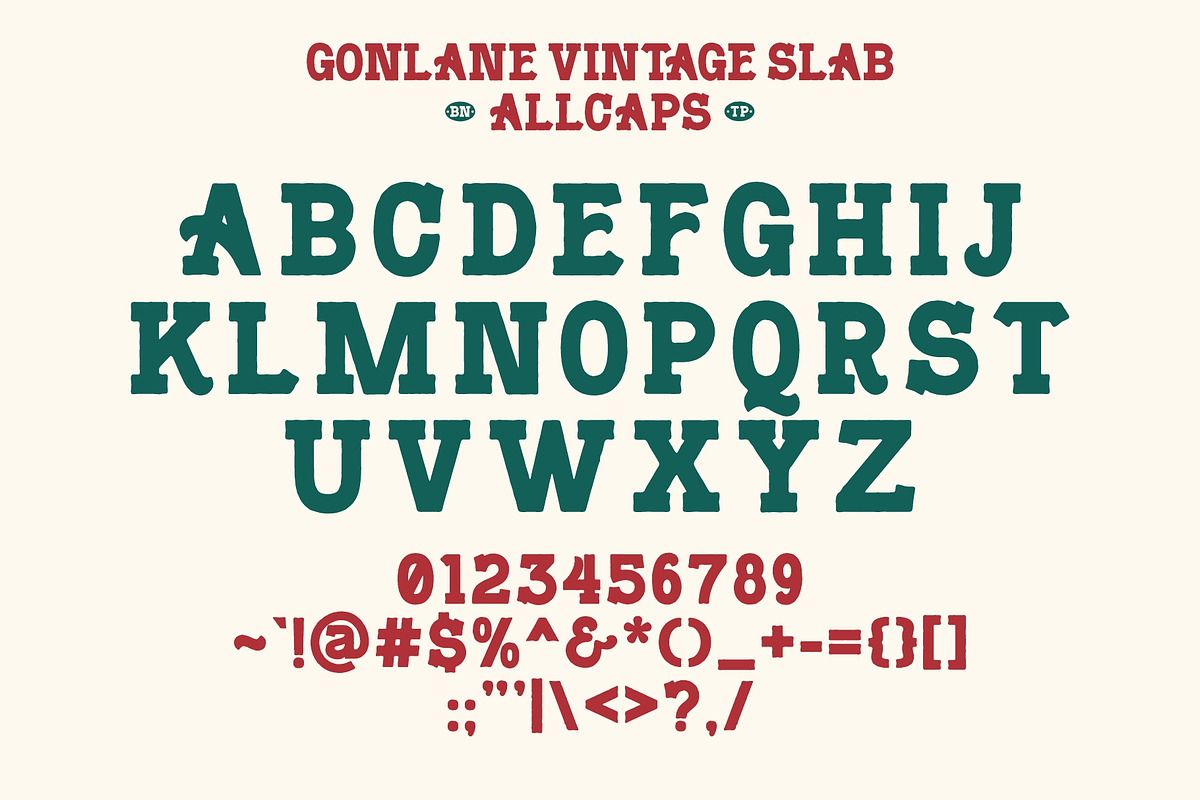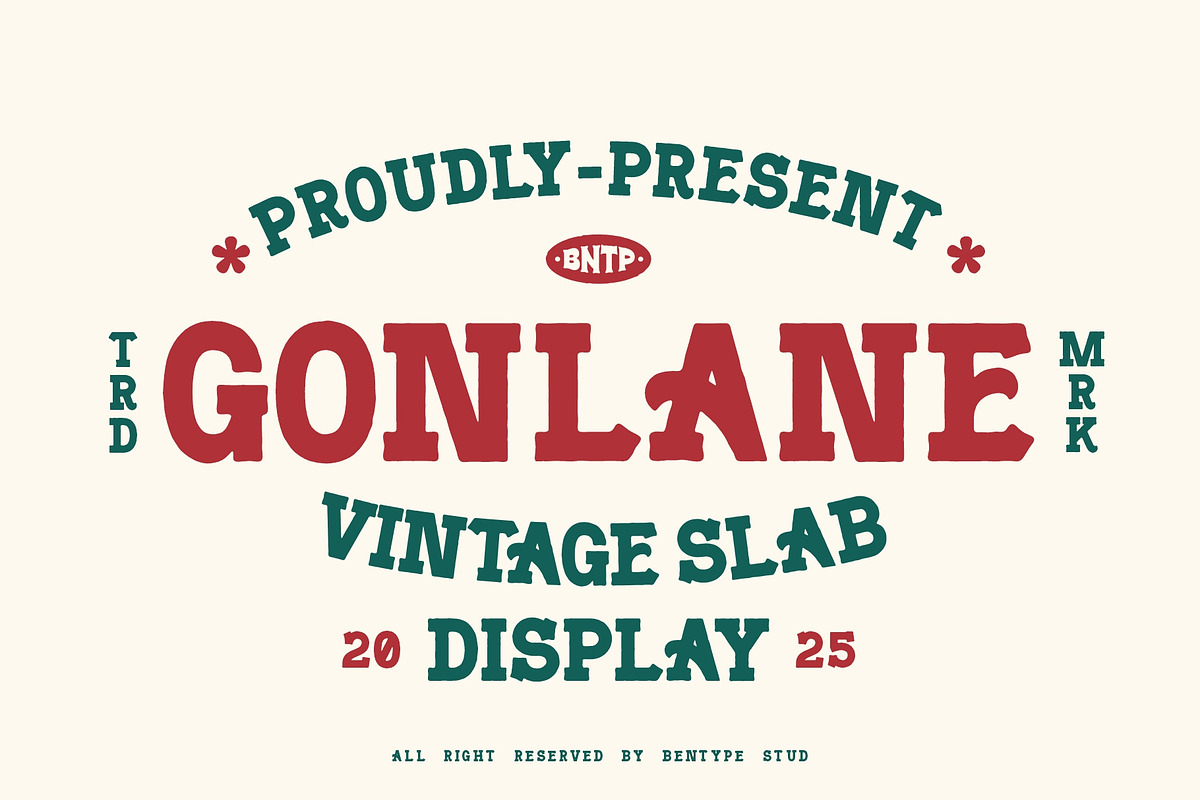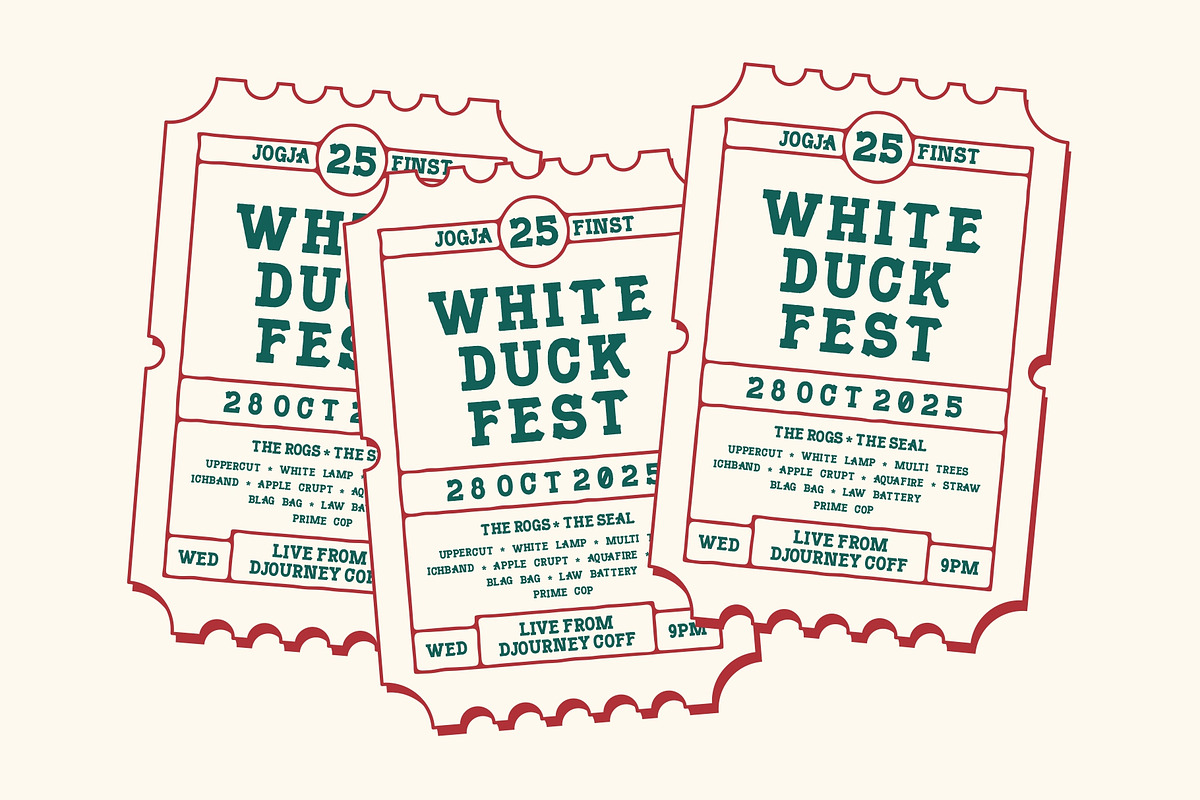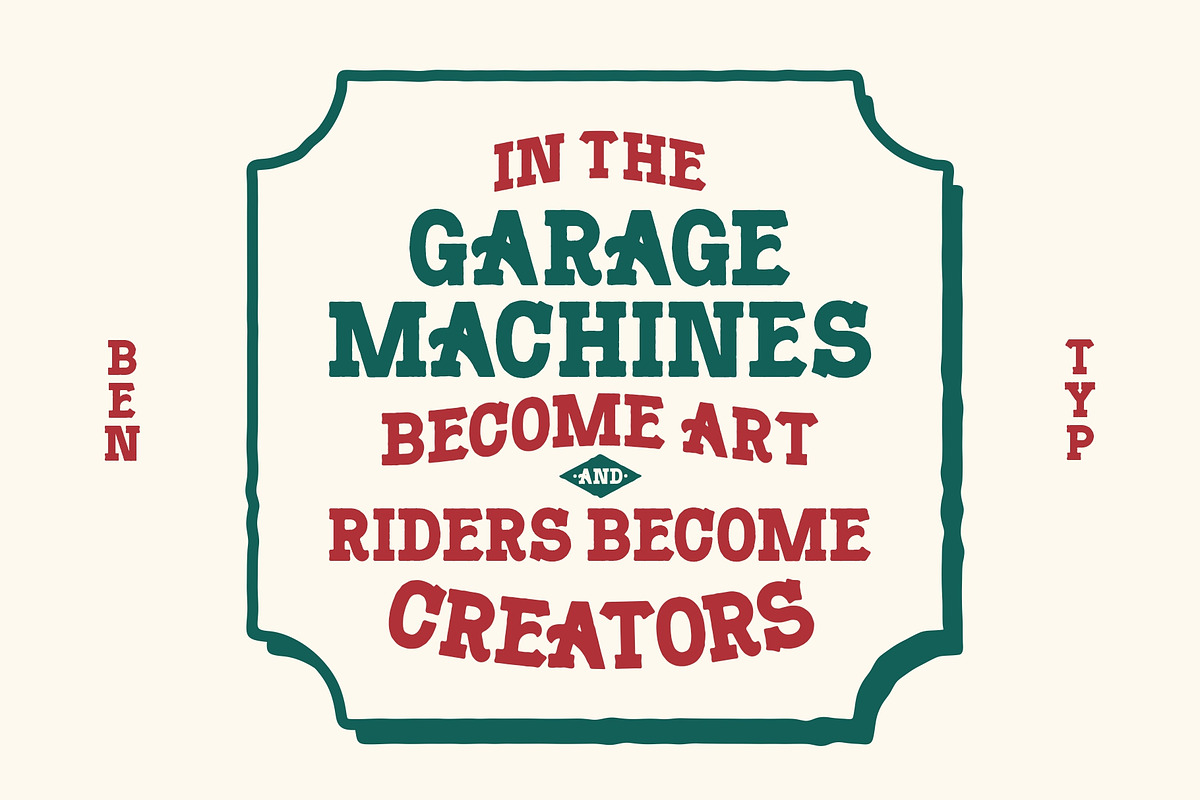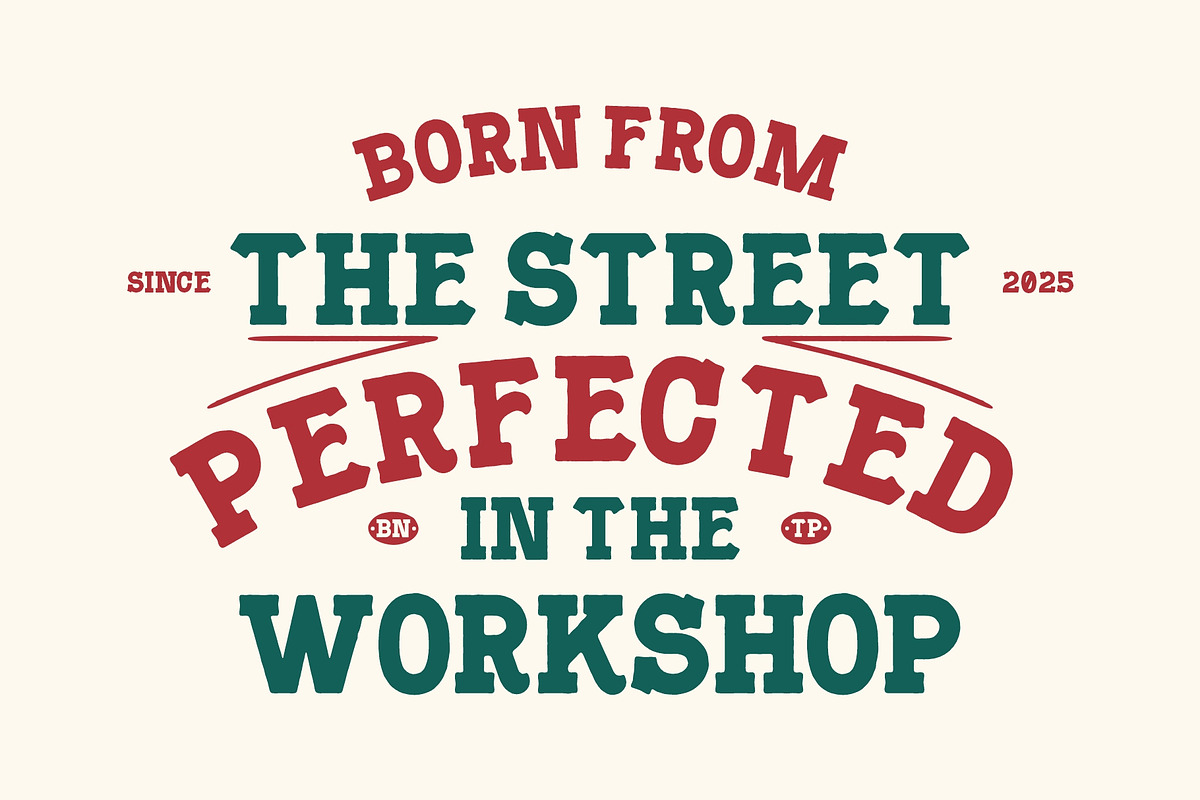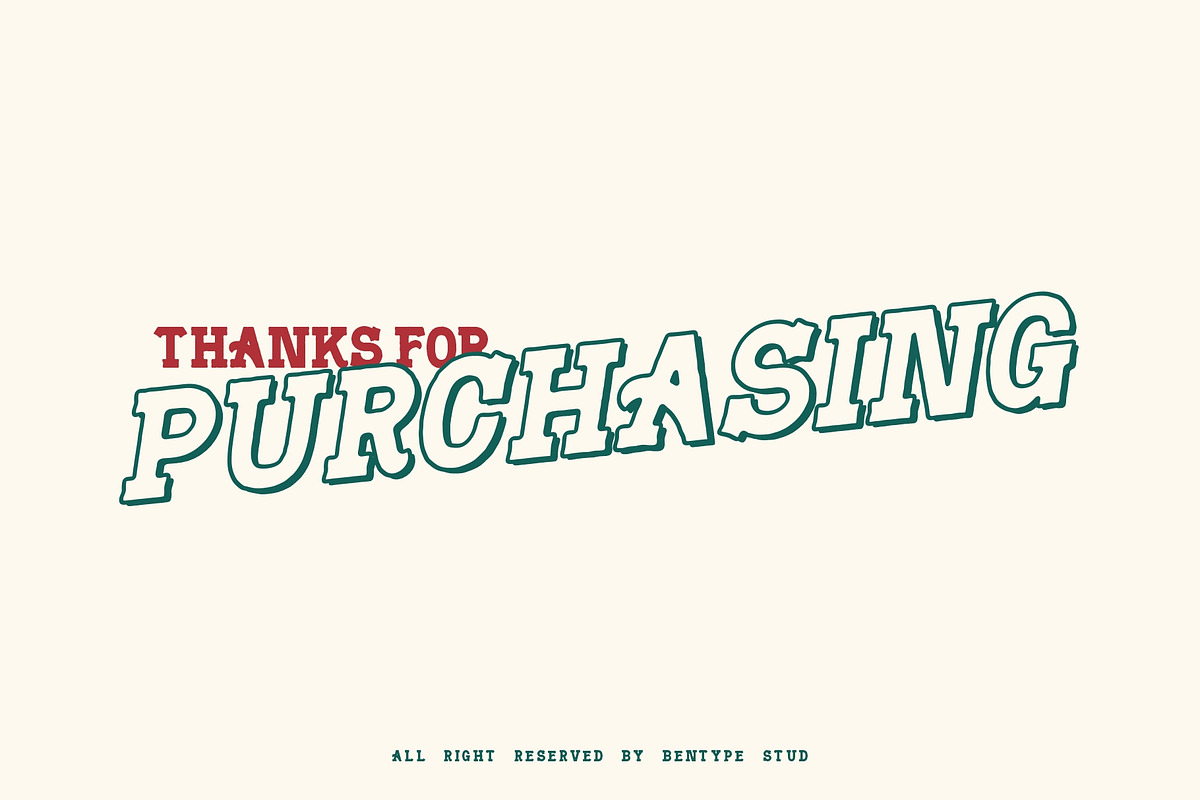
Gonlane - Vintage Slab Display
Gonlane - Vintage Slab Display is a vintage Western typography, this typeface captures the strength and grit of classic saloon signs, rodeo posters, and rustic branding. Its thick, blocky serifs and solid structure make it perfect for logos, packaging, signage, and editorial layouts. Hiqual is crafted with sharp details and bold letterforms that demand attention while maintaining a timeless vintage appeal. Font Includes: - Allcaps - .otf & .ttf - Numbers - Punctuation Contact us if you need help. I hope you enjoy and thank you.